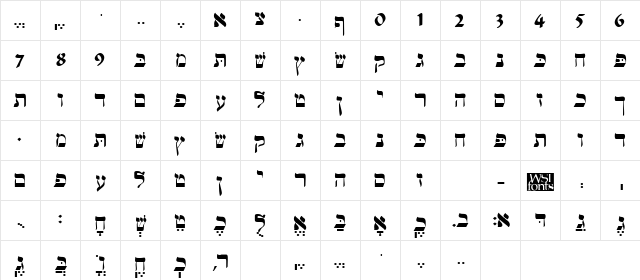
Hebrew-WSI Regular
Design Context for Hebrew-WSI Typeface
Hebrew-WSI is a composed and adaptable typeface that performs quietly and consistently across a wide range of design contexts.